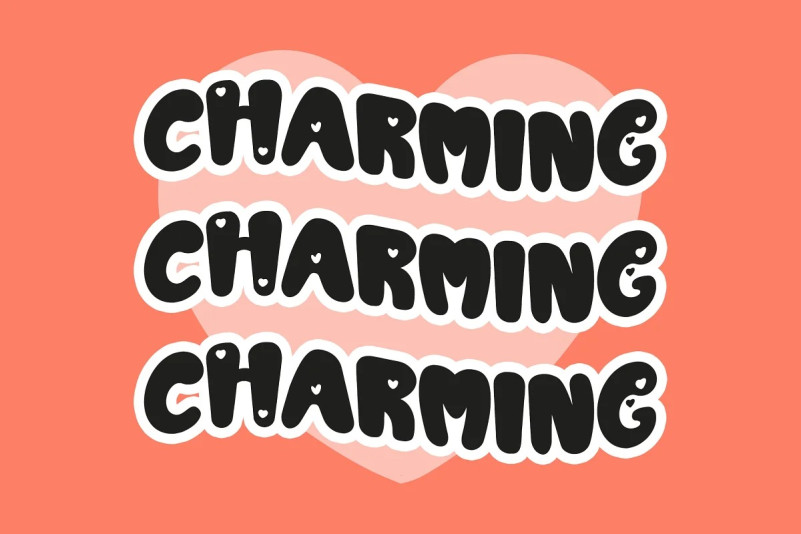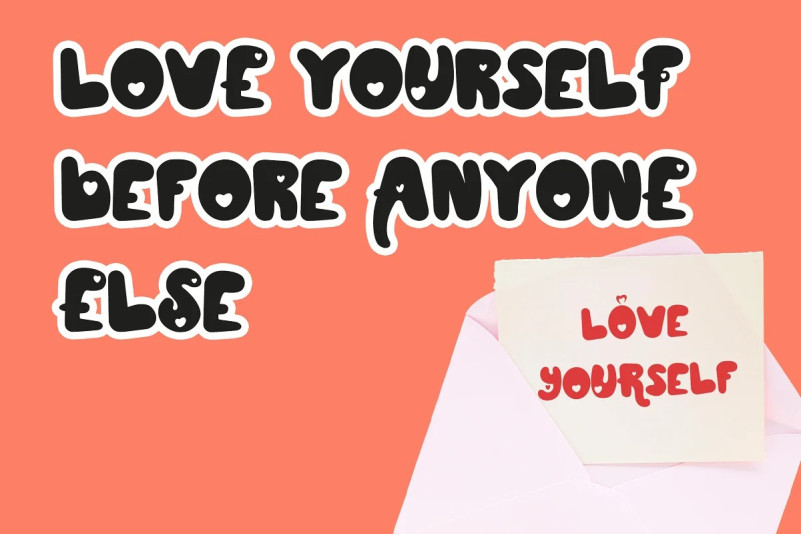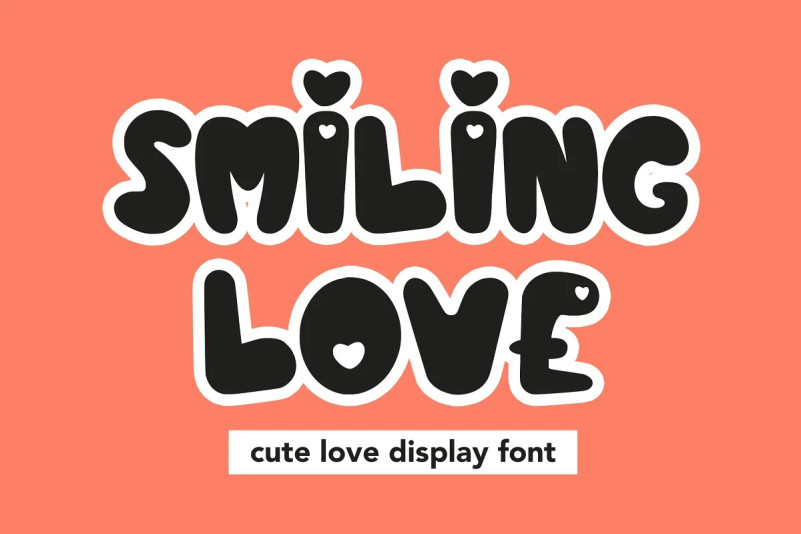
Smiling Love Font
There it is! I really hope you enjoy it, Smiling Love – Cute Love Display Font is a font with distinctive handwritten characters perfect for branding projects, logos, wedding designs, media posts, advertisements, product packaging, product designs, labels, photography, watermarks, invitations, stationery, and any project who need handwritten dishes.